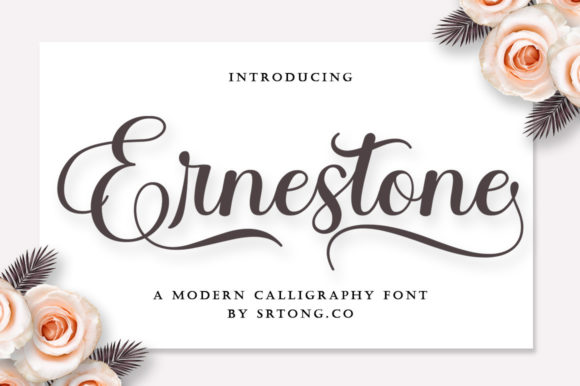
Welcome to the world of Ernestone Script, a typeface that exudes elegance and modernity. Inspired by the timeless beauty of classic calligraphy, Ernestone Script brings a touch of sophistication to your business correspondence.
Crafted by the skilled hands of Strong.co, this script font possesses an impeccable form, with each letter meticulously designed to convey a sense of professionalism and finesse. Its fluid strokes and graceful curves lend a touch of charm and personality to your written communication, ensuring that your messages stand out from the ordinary.
But Ernestone Script is more than just a pretty face. This PUA-encoded font empowers you with the versatility to access a treasure trove of glyphs and swashes with effortless ease. Unleash your creativity and add an extra layer of visual interest to your business letters, invitations, and marketing materials.
With Ernestone Script as your font of choice, your business correspondence will transcend the mundane and enter the realm of the extraordinary. Its contemporary atmosphere will infuse your words with a sense of innovation and forward-thinking, while its classic roots provide a foundation of credibility and trust.
Elevate your business communication to new heights with Ernestone Script. Let its refined elegance and impeccable form captivate your audience, leaving a lasting impression that speaks volumes about your professionalism and attention to detail.